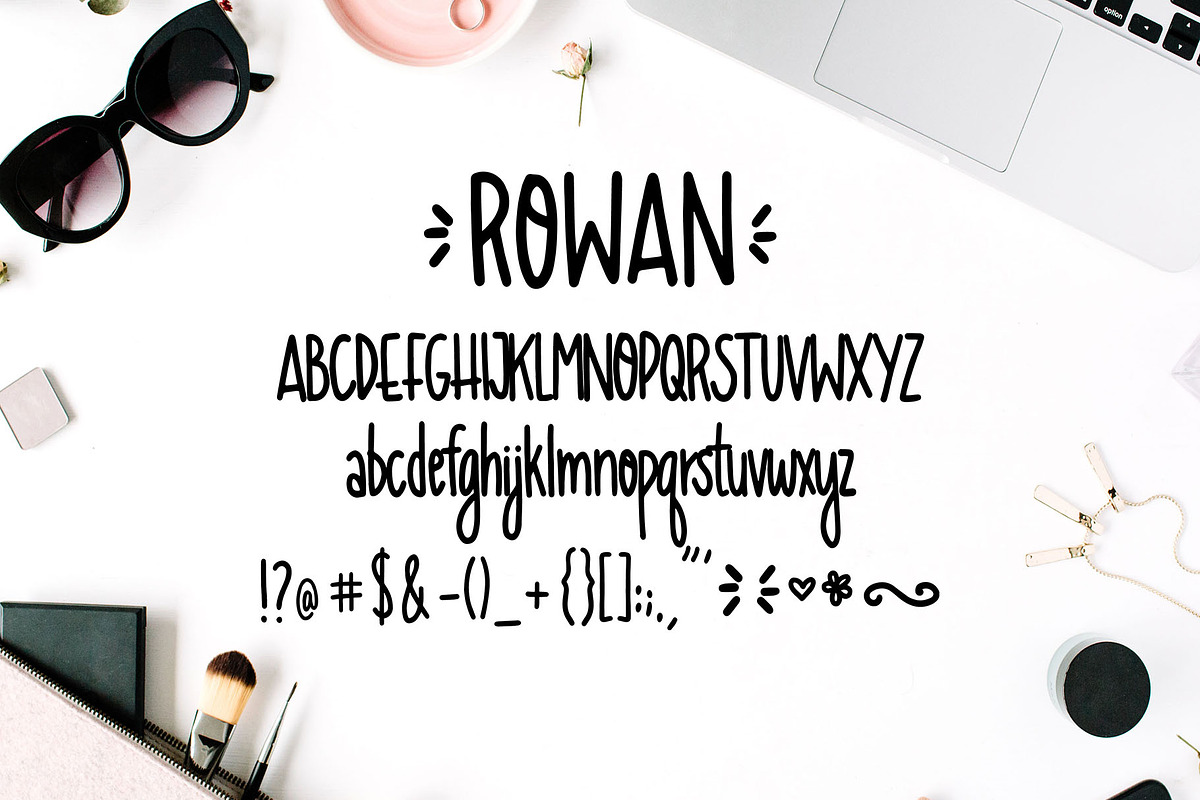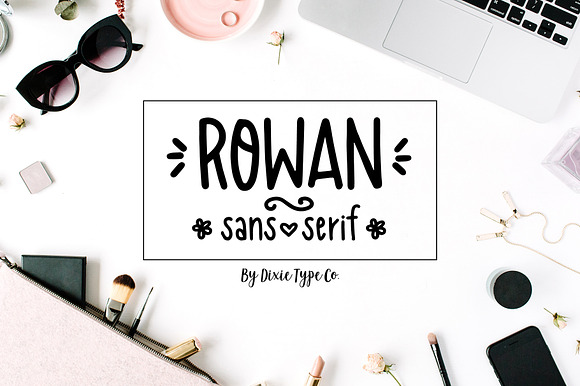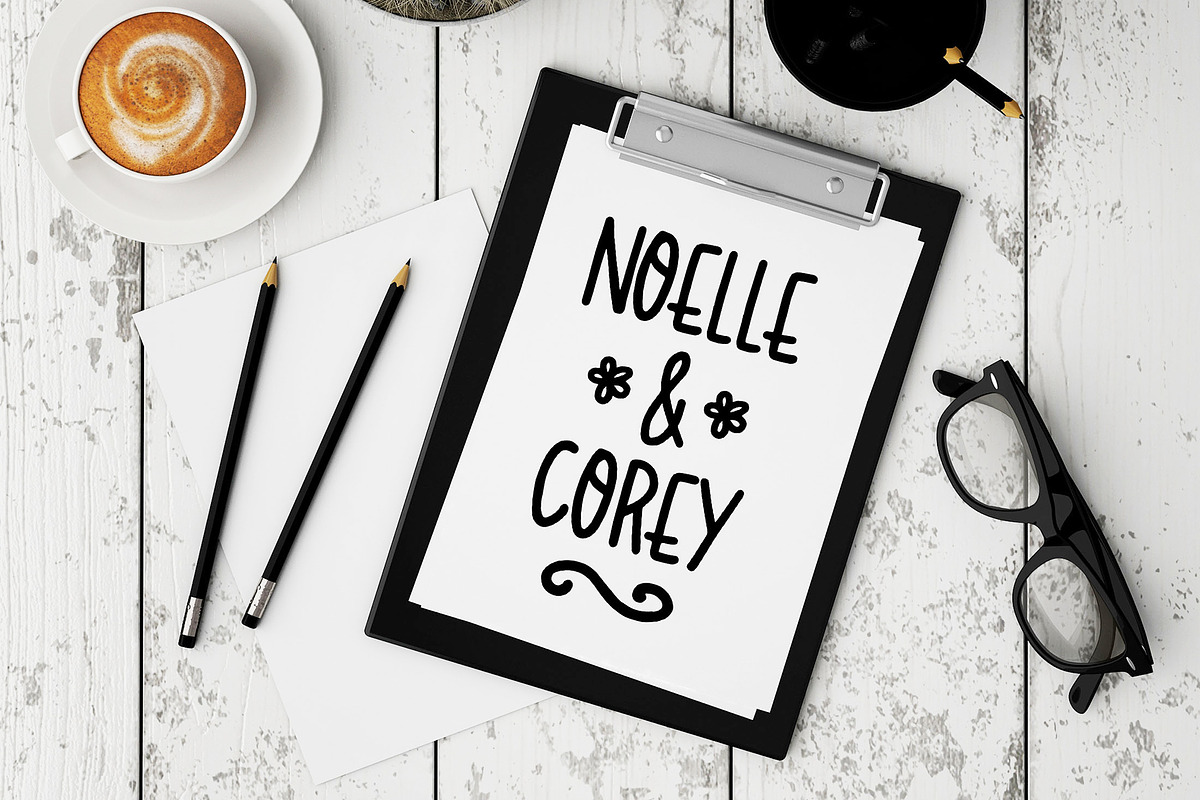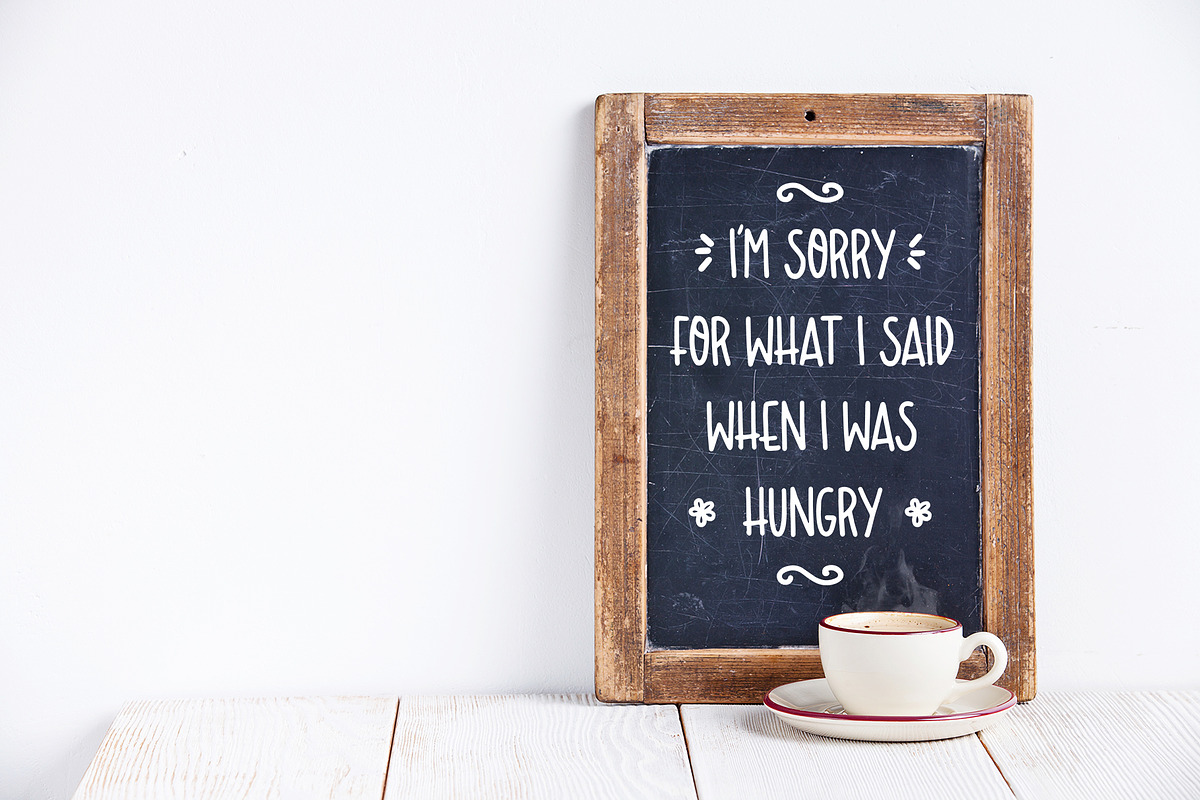
Rowan Sans Serif Font
"Rowan Sans Serif" hand-lettered installable font.
{ A typographic font hand-lettered with love by Dixie Type Co. }
The favorite ROWAN sans serif letter set is now available here as an INSTALLABLE font!
Rowan Sans Serif is a simple brush lettered font that will compliment any script font. This works great in projects that use lots of text. Use it on wedding invitations, business cards, party invitations, tags, etc.!